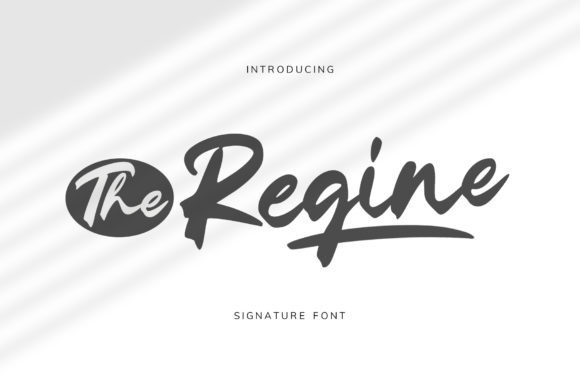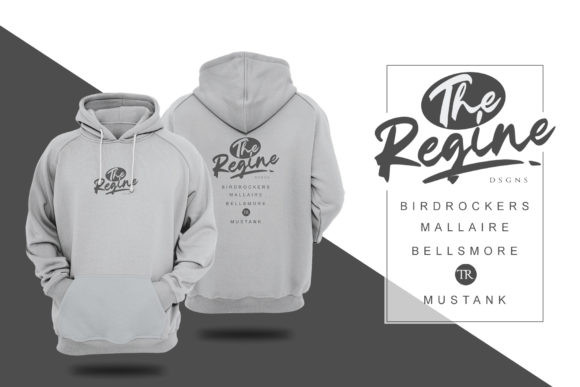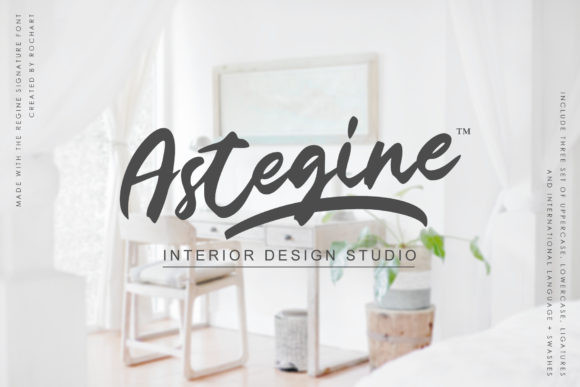
The Regine Font
The Regine will give your designs an authentic handcrafted feel! It is perfectly suited to signature, stationery, logo, typography quotes, magazine or book cover, website header, clothing, branding, packaging design and more. The Regine is a great script font that contains ligatures, stylistic alternates and swashes.